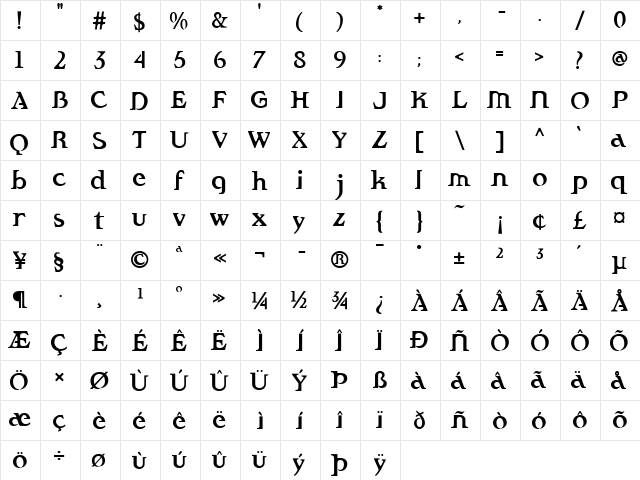
Fandango Bold Font Preview
Fandango Bold
Design Context for Fandango Typeface
Fandango is a composed and adaptable typeface that performs quietly and consistently across a wide range of design contexts. Its bold stroke weight gives it real presence on the page.
Pro Tip: Pair Fandango with a font of contrasting weight or personality to build a more expressive typographic hierarchy.